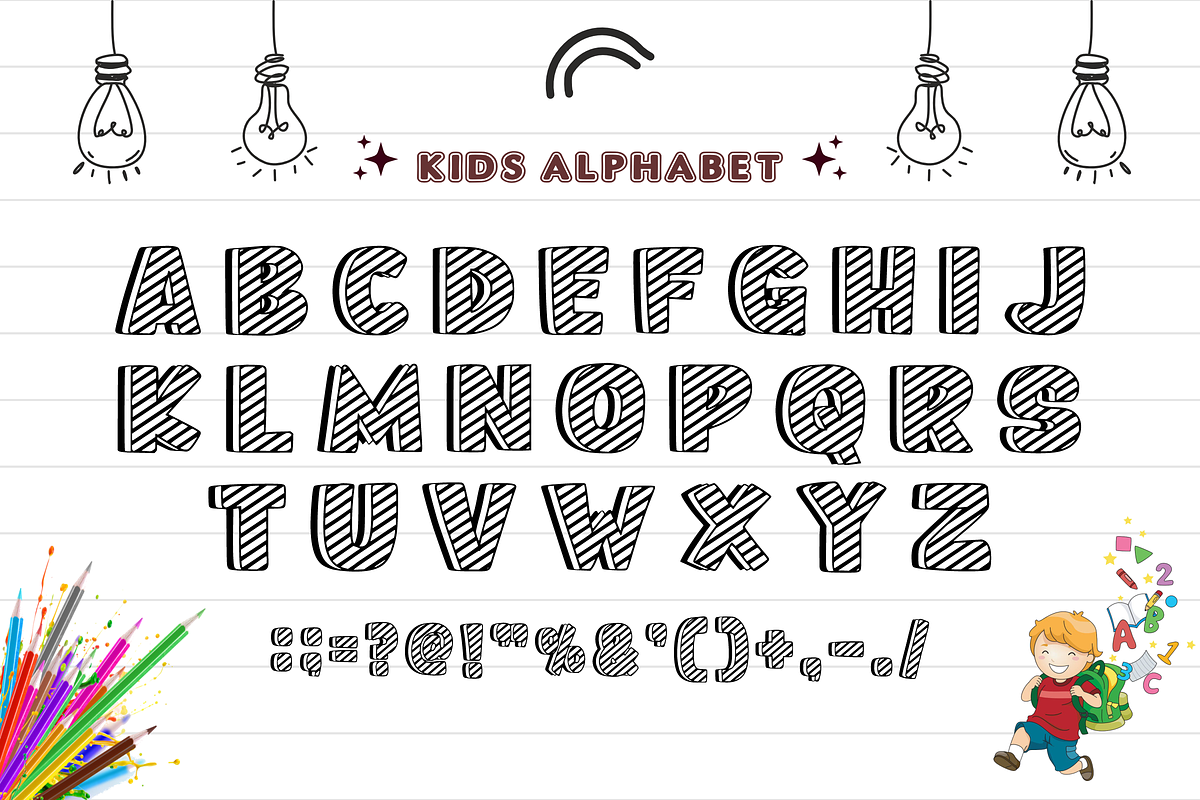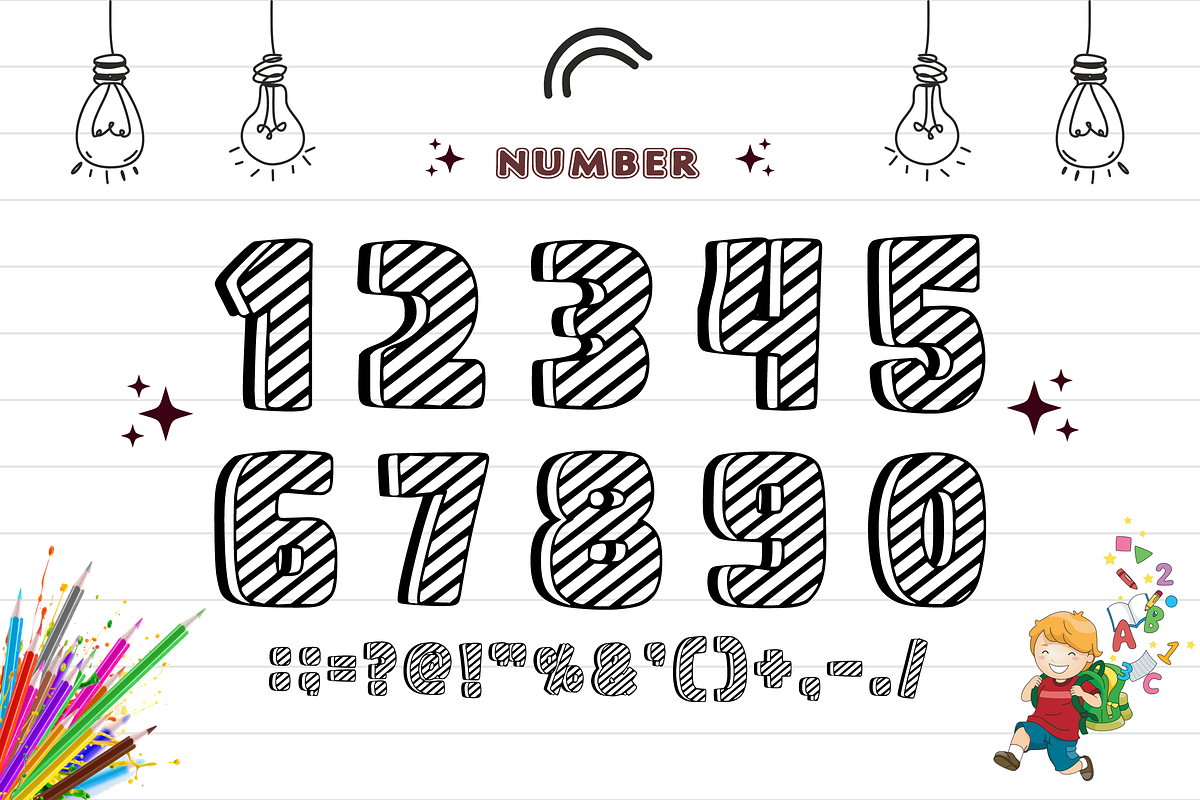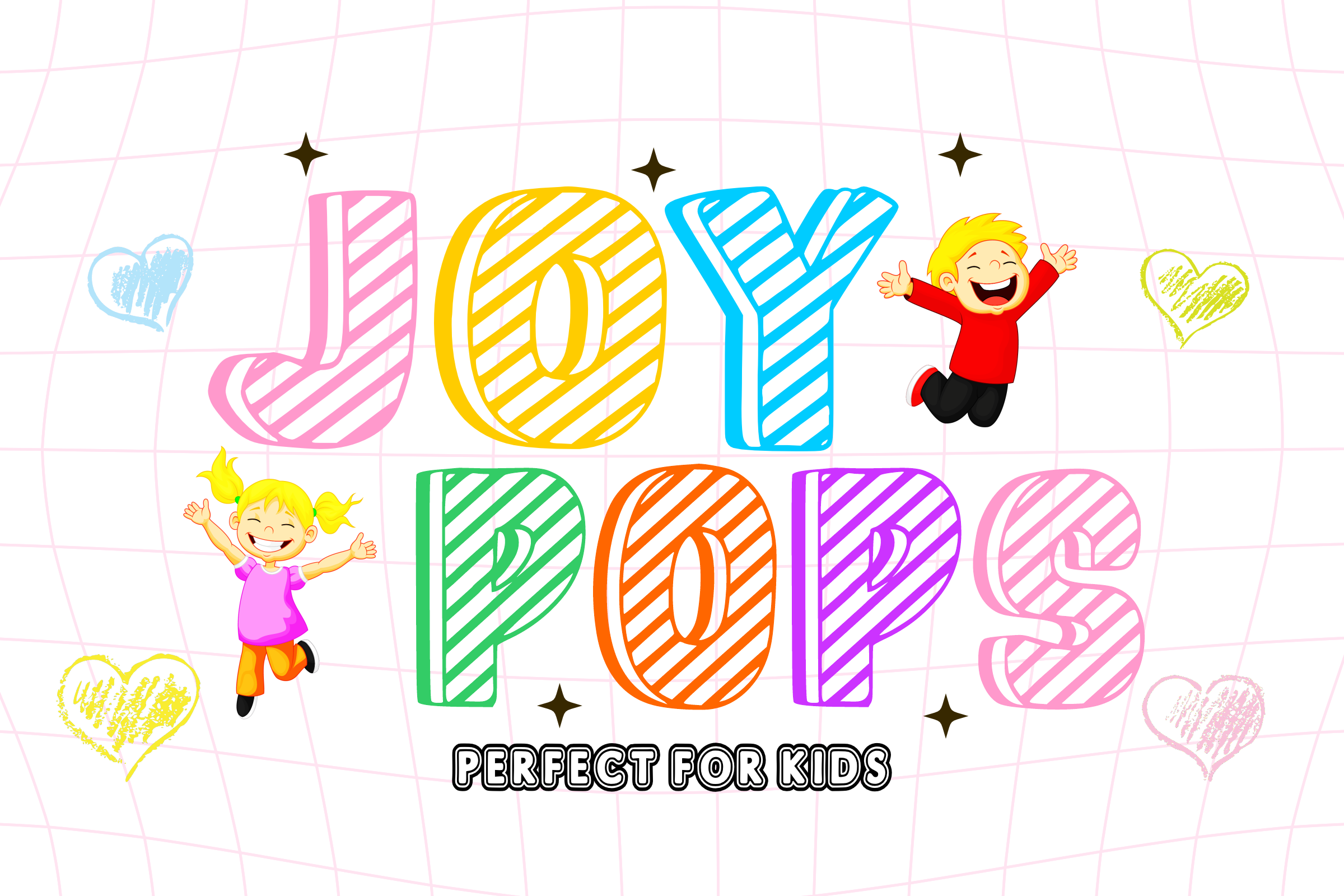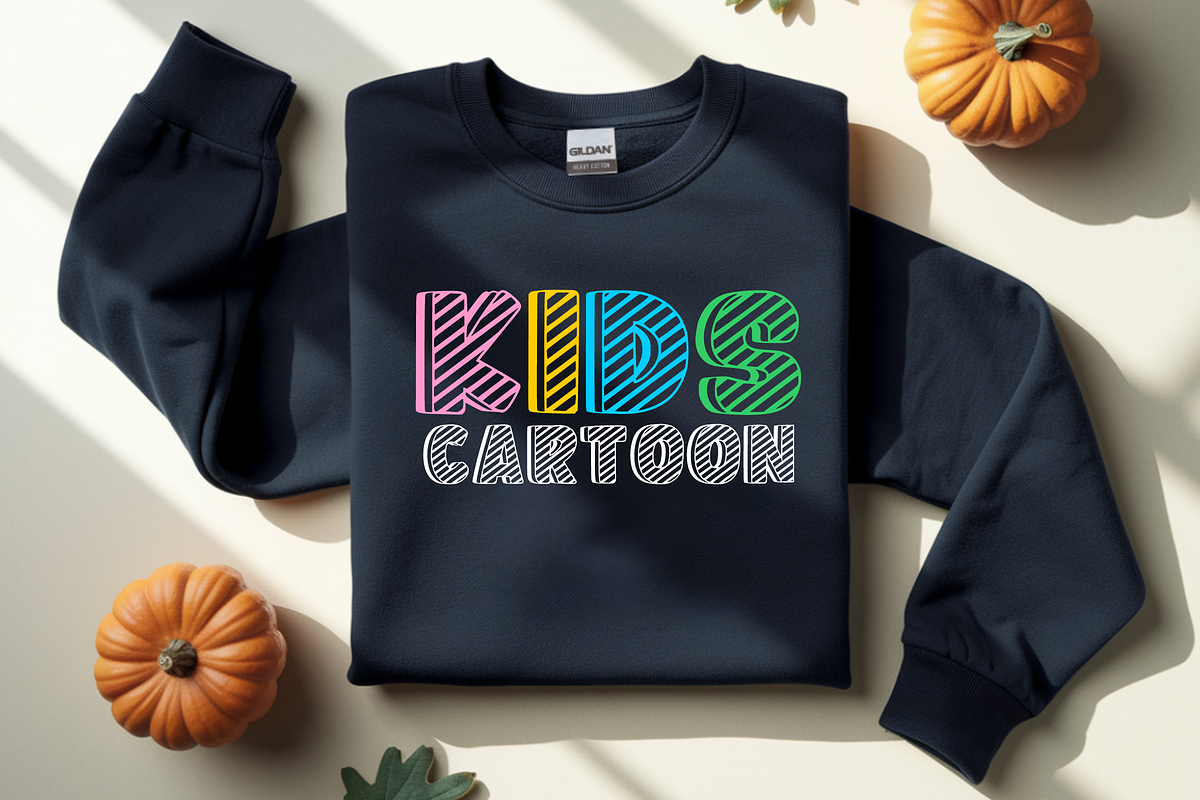
Joypops - Playful Kids Font
Bring a burst of pure happiness and creative energy to your designs with Joypops! This ultra-fun cartoon display font features chunky, bold letterforms filled with a playful diagonal stripe texture. It’s the ultimate choice for designing standout school projects, cheerful birthday invitations, and kids' product packaging that immediately brings a smile.
Perfect for independent crafters, teachers, and clothing brands, Joypops combines a whimsical hand-drawn look with clean, high-impact legibility. It cuts beautifully on digital cutting machines like Cricut and Silhouette, making it fully optimized for a flawless finish across all your digital and print projects.
All-Caps Character Set (Bold, cheerful uppercase letters featuring an eye-catching internal stripe pattern)
Numbers & Simple Punctuation (Essential, clean symbols included)